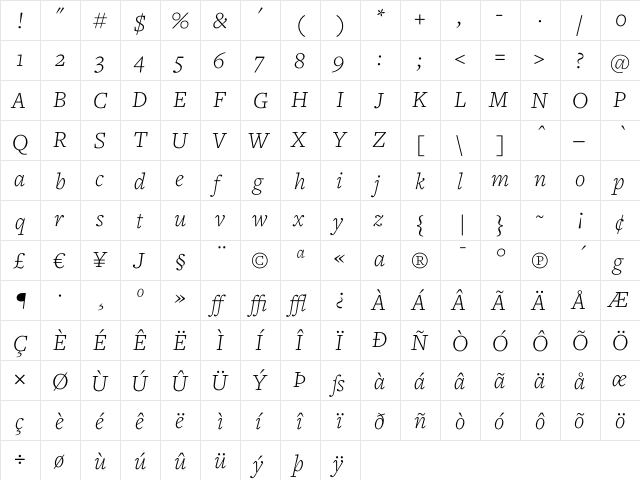
Freight Text Light Italic Font Preview
| Style | Text Light Italic |
| Foundry | Joshua Darden & Phil's Fonts, Inc |
| Designer | Joshua Darden |
Design Context for Freight Typeface
Freight takes a measured approach to typography — its balanced proportions and neutral character make it a reliable workhorse for both digital and print work. The dynamic lean of this cut emphasises speed and emphasis in any layout. Its slender proportions lend an understated elegance to any composition.
Pro Tip: Try Freight for annotation and caption copy alongside an upright companion — the contrast in angle creates a dynamic but ordered typographic system.